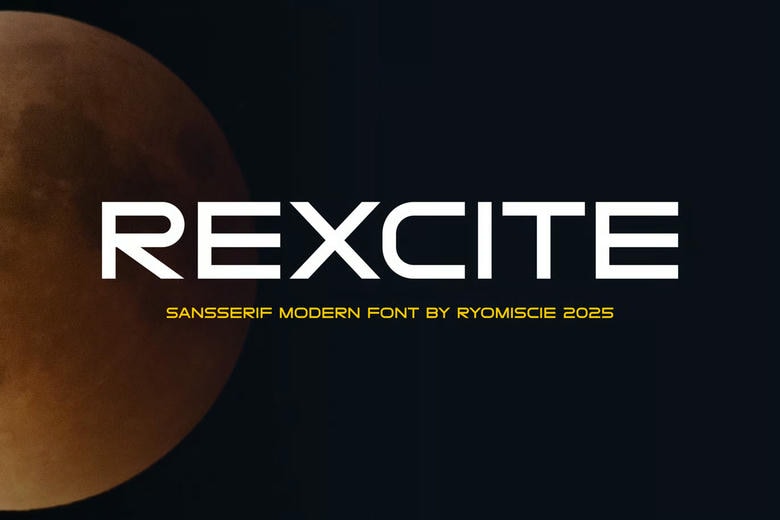
Rexcite Font
Rexcite Font – Modern Font is a bold and authentic display font. The font is suitable for any branding project like logo, t-shirt printing, esport, and many more. outstanding in a wide range of contexts.
Rexcite Sans Serif Font